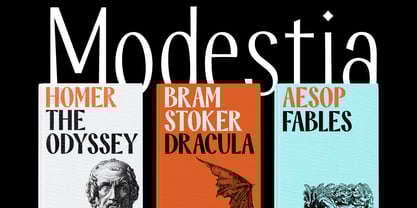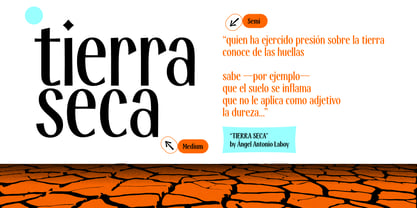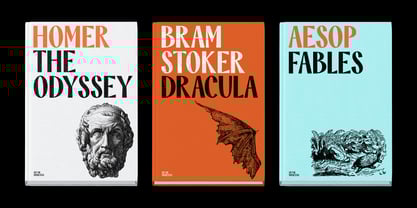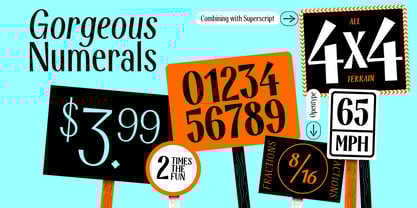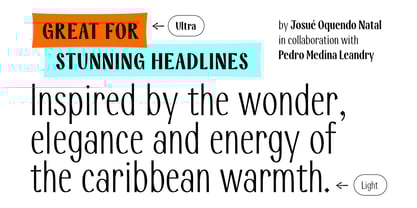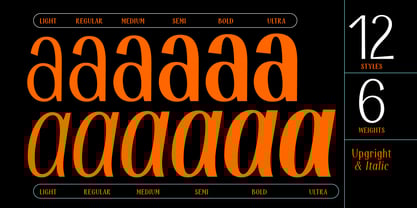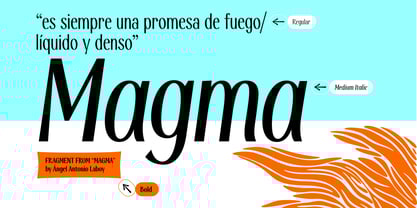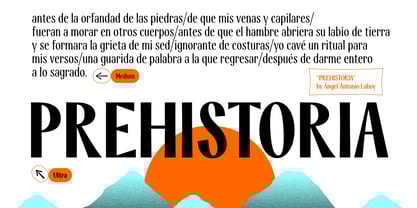
Modestia
by Pedroglifos
The Modestia Font Family was designed by Pedro Medina-Leandry, Josué Oquendo Natal and published by Pedroglifos. Modestia contains 12 styles and family package options. More about this family
Timeless forms crafted with heart. Modestia is a humanist sans serif inspired by Caribbean gesture: friendly with a warm tone at heart. Its tapered and slightly narrow proportions, paired with sheared terminals, reflect an organic and calm presence without sacrificing character or expression. The subtle modulation in its strokes makes it ideal for projects that require a crafted look and feel while maintaining strong legibility. The family comes in two styles: Roman for stable and structured communication, and Italic when greater flow and calligraphic nuance are needed. Modestia works beautifully as a display face in editorial, cultural, and brand projects seeking a distinct sans serif that doesn’t feel anonymous, but rather like a classic and gentle voice. The above specimen contain fragments of poems by Ángel Antonio Ruiz Laboy.
Designers: Pedro Medina-Leandry, Josué Oquendo Natal
Foundry: Pedroglifos